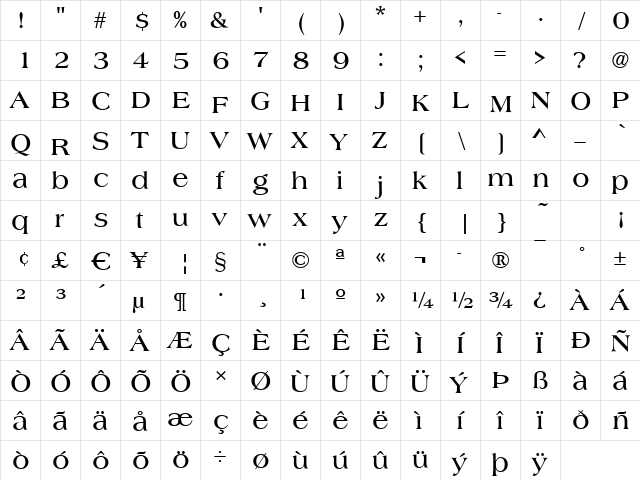
Almeria Bold
Design Context for Almeria Typeface
Almeria is a composed and adaptable typeface that performs quietly and consistently across a wide range of design contexts. Its bold stroke weight gives it real presence on the page.